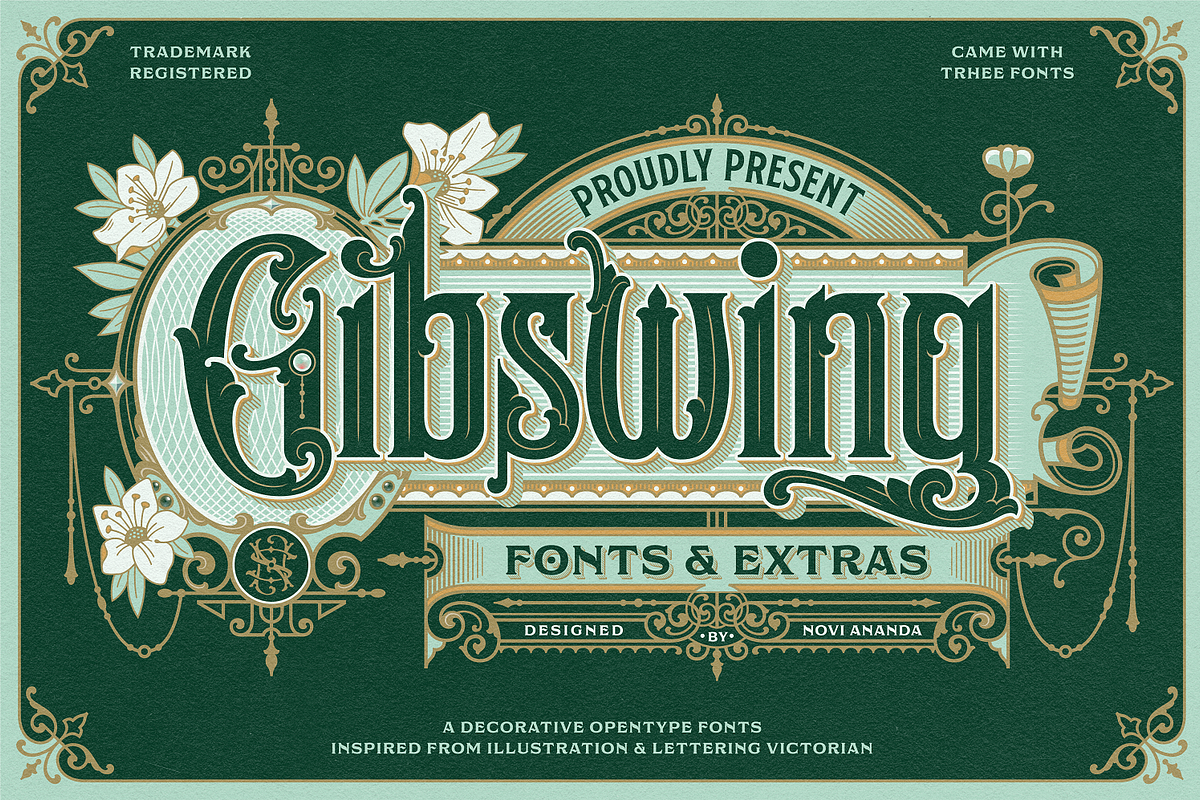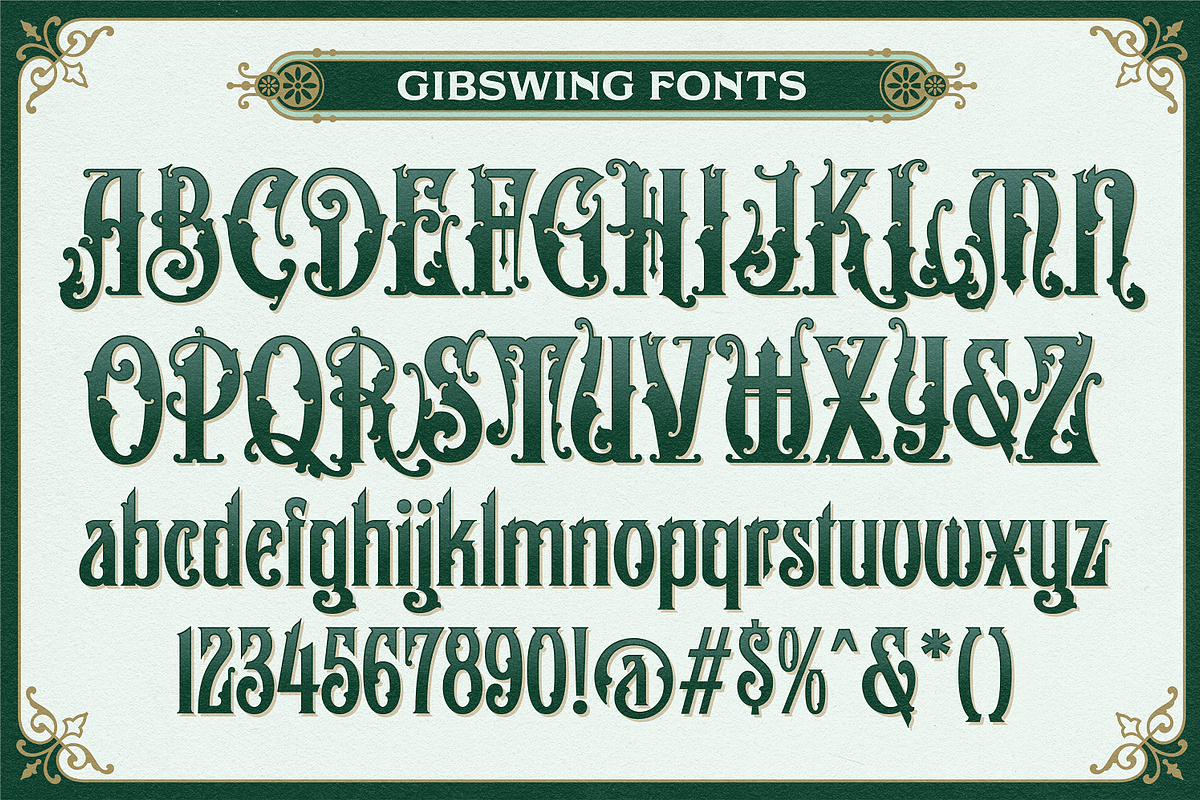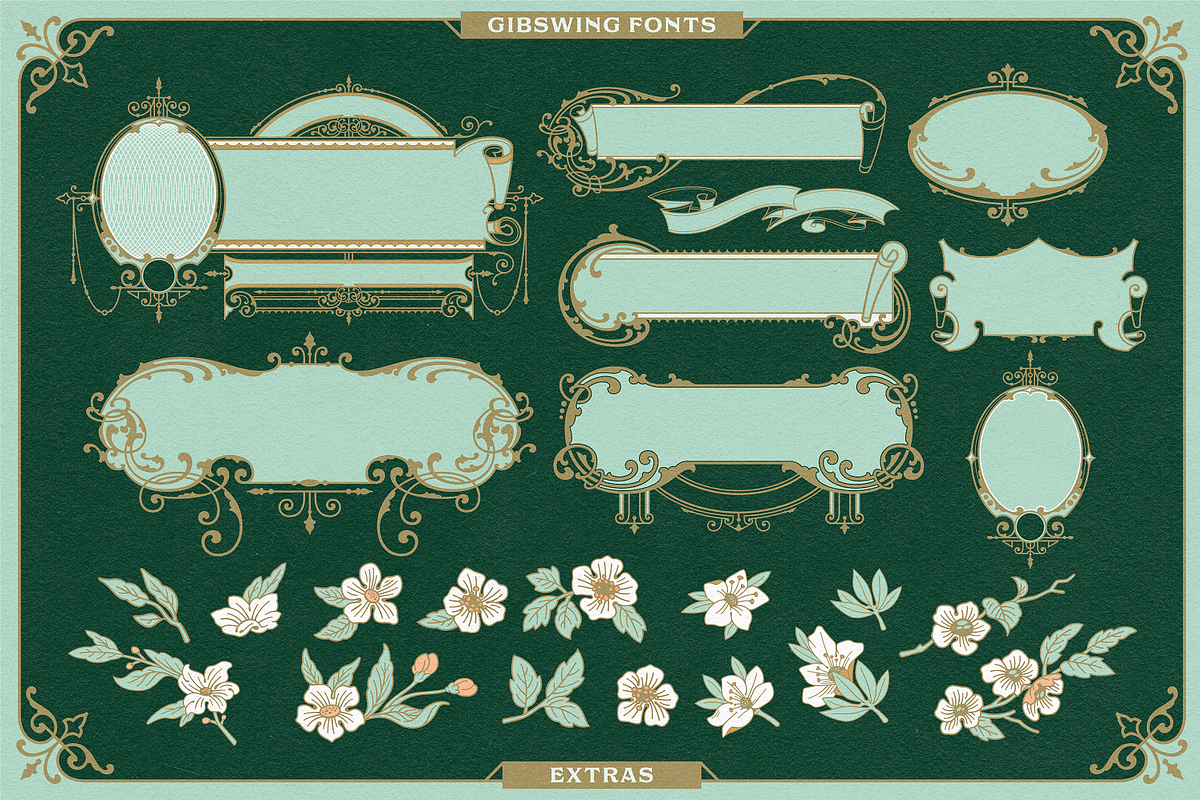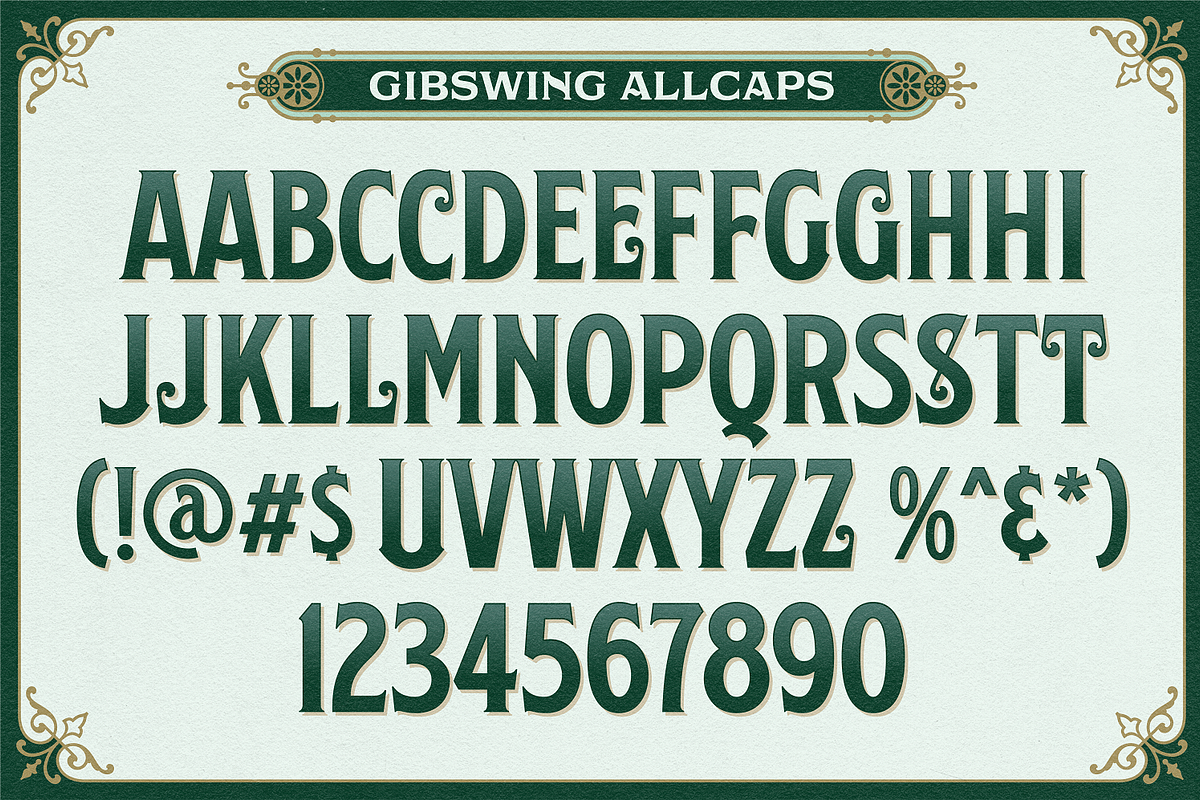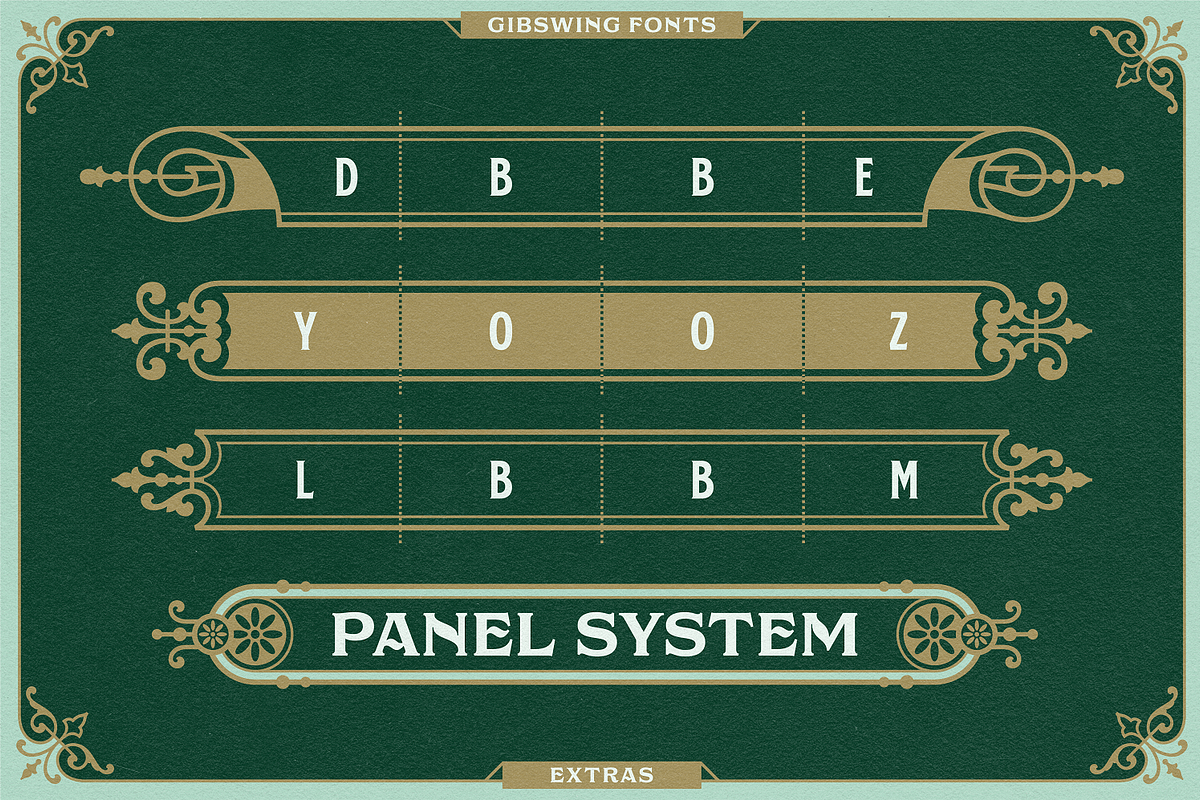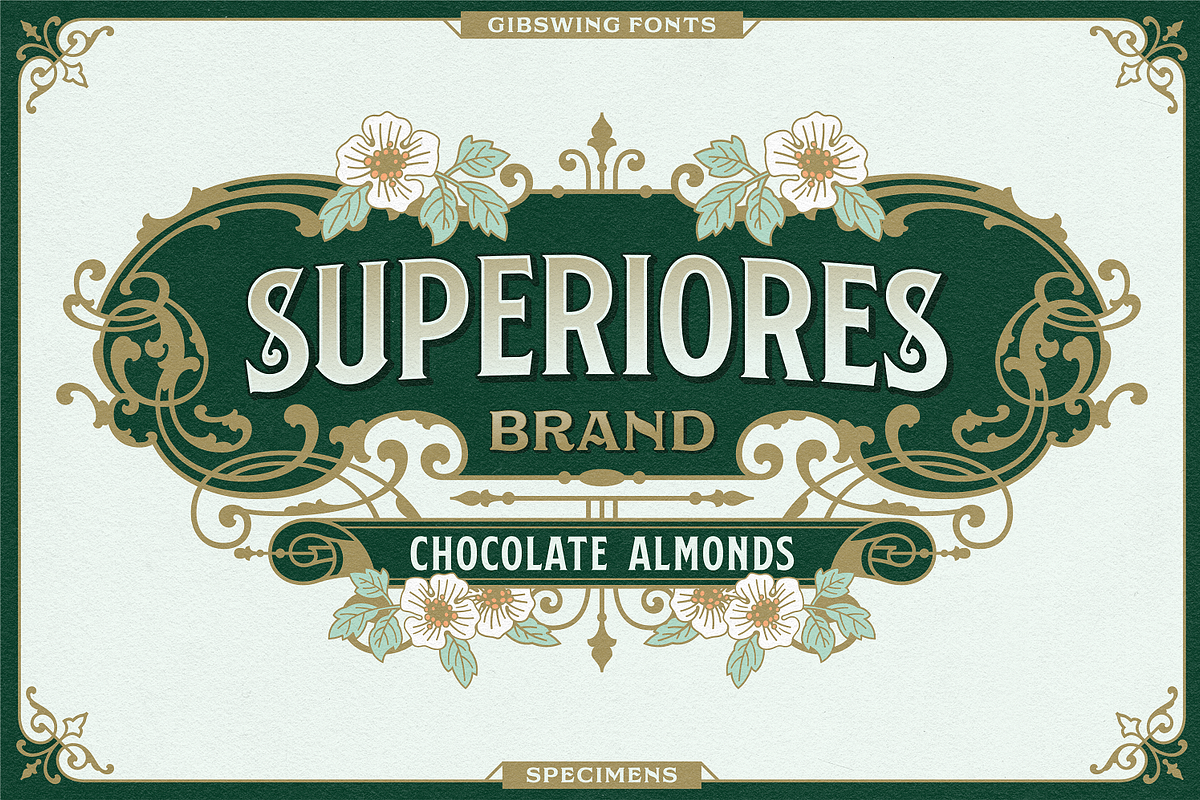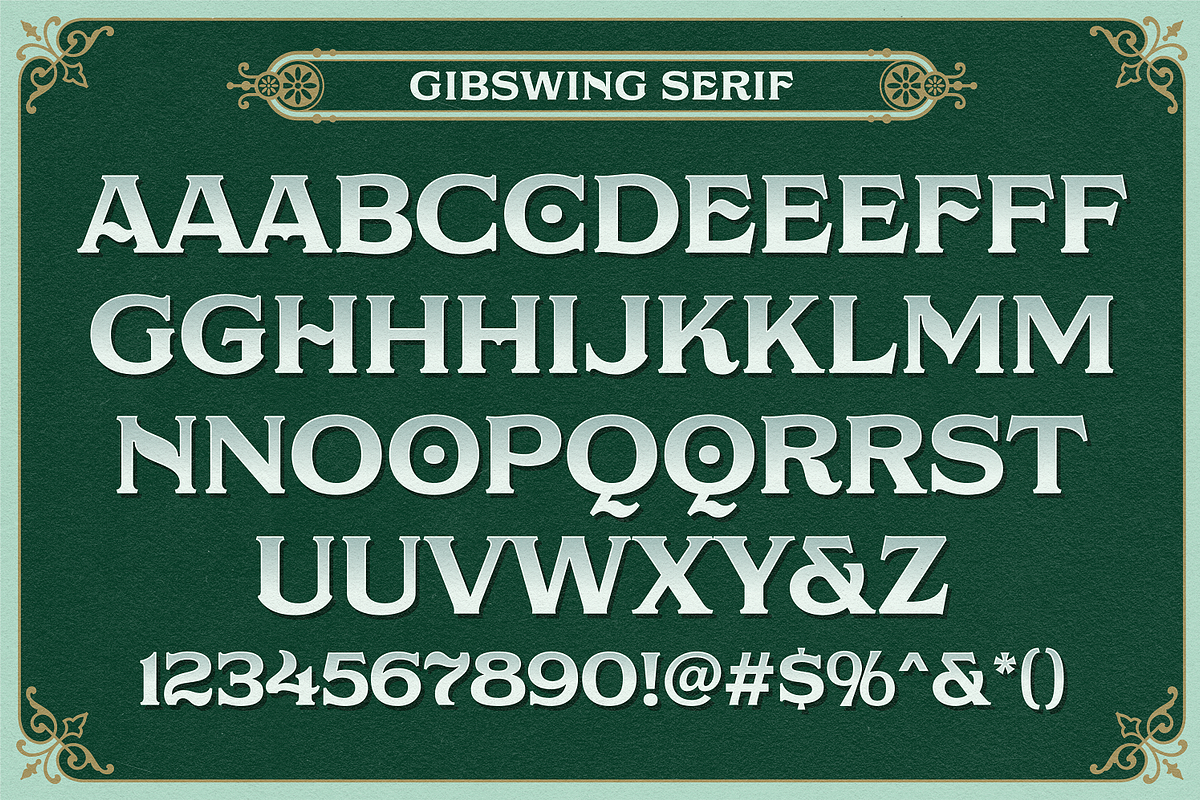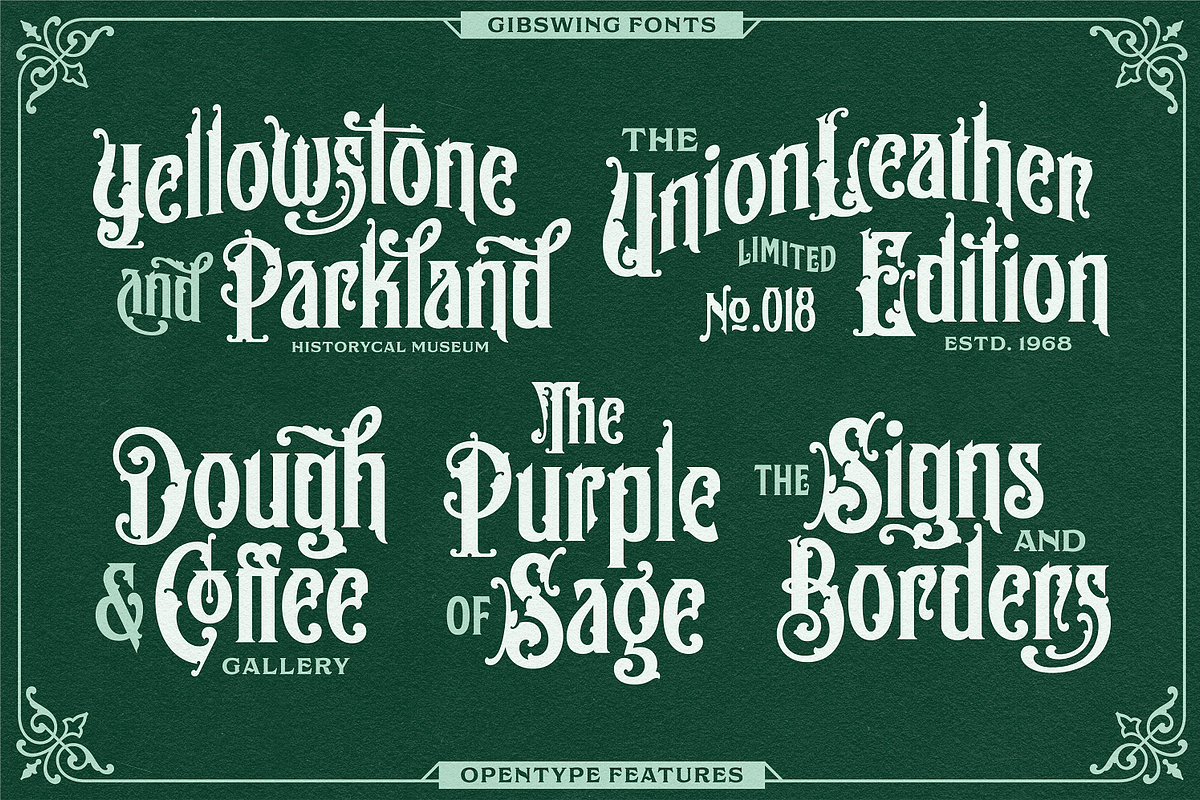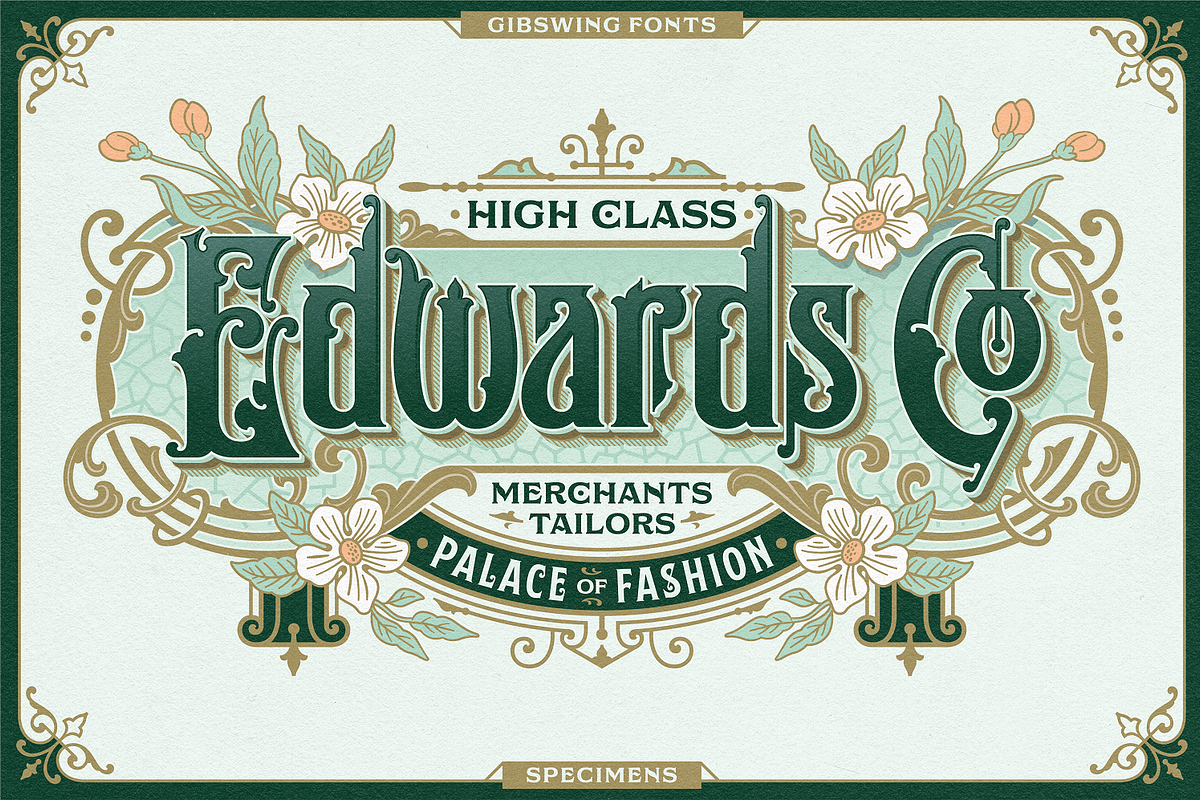
NS Gibswing Fonts + Extras
NS Gibswing born based on the reference of old fancy lettering, vintage illustration, and victorian calligraphy. The Gibswing decorative style make it as an instant time machine to the era from 1800-1900 victorian visual style of the products, printed advertising, and signs back in the day.
It will be a perfect companion of your classic visual direction for decorative sign, labels, branding, logotype, you name it.